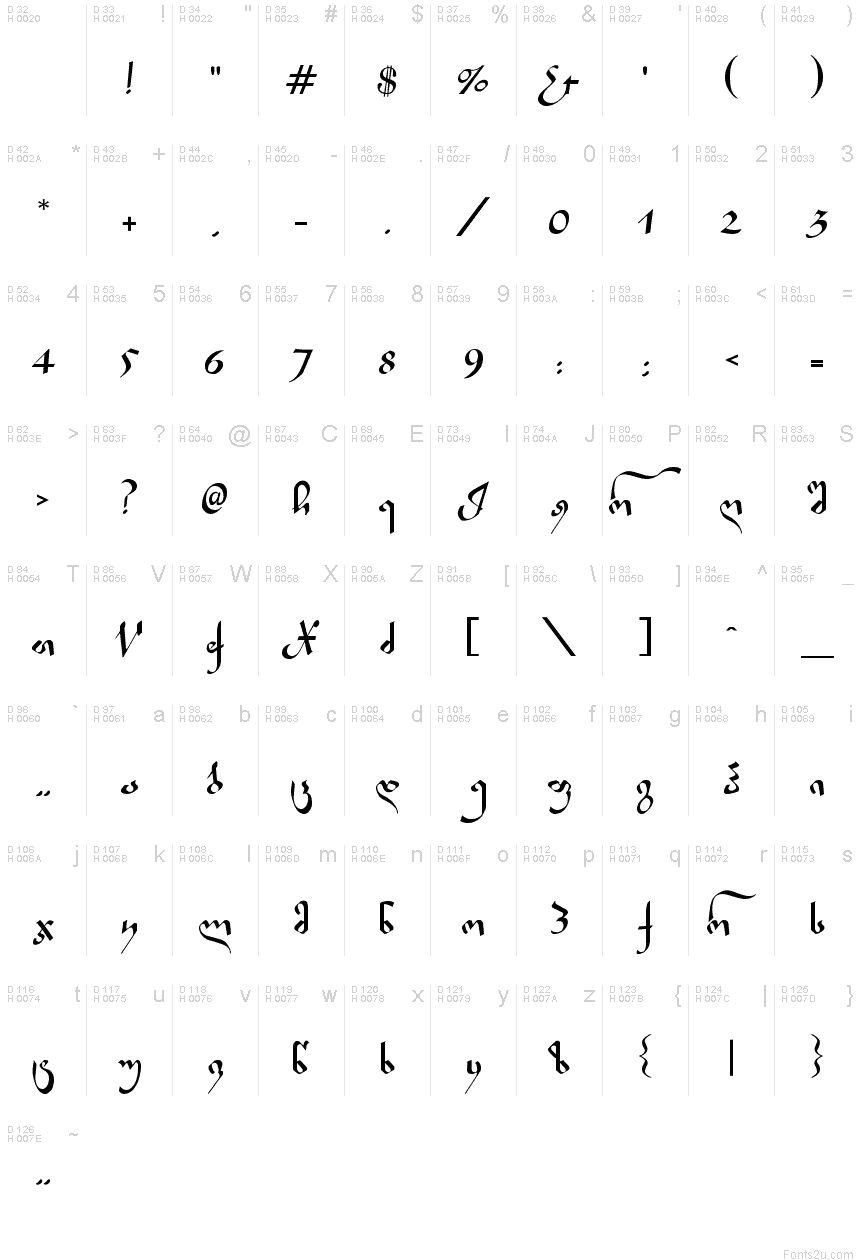
Aladini by Slava Meskhi is a free calligraphic display font built from broad sweeps, tight hooks, and abrupt changes from thick strokes to pointed tips. The irregular joins give the letters a lively handmade edge.
A theatrical venue, fashion label, or specialty drinks brand could use its dramatic curves across posters, packaging, event graphics, and merchandise, where the lettering can echo illustrated ribbons or smoke. For publishing, the sweeping silhouettes can turn a fantasy book title or magazine cover line into part of the artwork rather than a neutral caption.